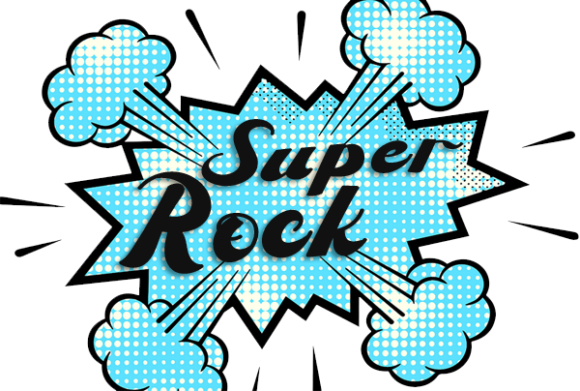
Journey into the realm of exquisite artistry with Super Rock Font, a script typeface that captures the essence of elegance and sophistication. Its characters, like graceful dancers, glide across your designs, adding a touch of luxury to every project. Whether you're designing an unforgettable quote, crafting a heartfelt invitation, or creating stunning logos, Super Rock Font elevates your creations to new heights.
Step into the world of Alfa studio, where artistry and inspiration intertwine. The creative minds behind this masterpiece have meticulously crafted each letter to exude beauty and charm, ensuring that your designs stand out from the ordinary. Unleash your creativity and let Super Rock Font guide you toward design excellence.
Experience the boundless versatility of Super Rock Font as it seamlessly adapts to a myriad of design styles. Its fluid strokes and delicate curves lend an air of grace to any project, from whimsical invitations to impactful branding materials. Whether you seek a classic appeal or a modern edge, Super Rock Font effortlessly complements your vision, transforming your designs into works of art.
With Super Rock Font, the possibilities are limitless. Its carefully designed characters effortlessly convey emotions and messages, leaving a lasting impression on your audience. Make a bold statement with eye-catching headlines, create heartfelt and personal invitations, or design logos that exude professionalism and sophistication. Super Rock Font empowers you to craft designs that resonate with your audience, leaving them captivated and inspired.